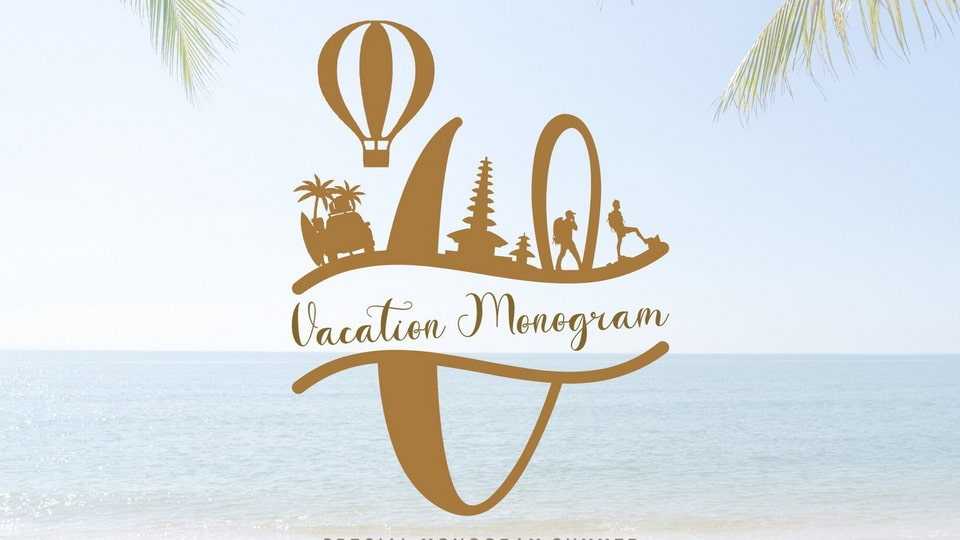
Download Vacation Monogram font, a script typeface combined with a monogram. This monogram is decorated with forms of tourism and traveling around the world.